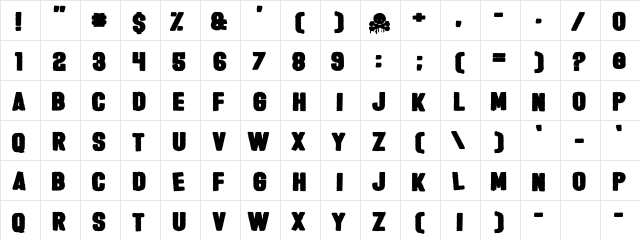
Halloween * Heresy Regular
Design Context for Halloween * Heresy Typeface
Halloween * Heresy offers clean, dependable letterforms without strong stylistic allegiance, making it a practical choice for designers who need flexibility.